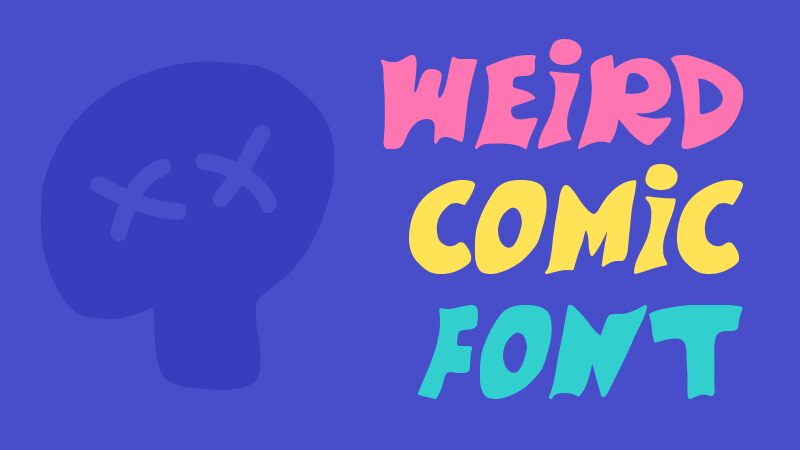
Weird Comic bursts onto the scene with a playful energy that's as infectious as it is distinctive. Designed by GGBotNet, this display font embodies the whimsy and spontaneity of comic book dialogue with an added twist that sets it apart from the crowd. Its bold strokes lend a confident presence to each character, making statements that leap off the page.
The style of Weird Comic is unapologetically quirky, capturing the essence of fun storytelling. This makes it an excellent choice for projects that aim to be lighthearted or need to captivate an audience with a sense of humor and creativity. From children's books to casual gaming interfaces and engaging marketing materials, Weird Comic brings a lively flair that can transform mundane text into an adventure in typography.